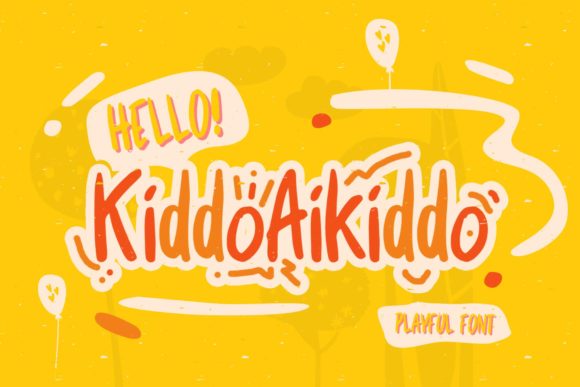
Welcome to the world of Kiddo Aikiddo, a playful and vibrant display font that will inject life and charm into your creative endeavors. Crafted with meticulous attention to detail by the talented artist febryan.satria1, Kiddo Aikiddo is the ultimate font for those seeking a touch of whimsy and uniqueness in their designs.
Immerse yourself in a world of boundless creativity as you explore the delightful possibilities of Kiddo Aikiddo. Its enchanting characters dance across the page, evoking a sense of joy and wonder that will captivate your audience. The font's unique playfulness adds a touch of magic to any project, transforming ordinary designs into extraordinary works of art.
With Kiddo Aikiddo, you hold the key to unlocking a world of endless design possibilities. Unleash your imagination and embark on a creative journey where every project becomes a masterpiece. From whimsical invitations and eye-catching posters to enchanting logos and playful branding, Kiddo Aikiddo will bring a smile to the faces of all who encounter it.
Step into a realm where creativity knows no bounds, where the ordinary becomes extraordinary, and where your designs take on a life of their own. Embrace the vibrant energy of Kiddo Aikiddo and let your imagination soar to new heights. Discover the boundless potential that lies within this captivating font and become a part of the Kiddo Aikiddo revolution.